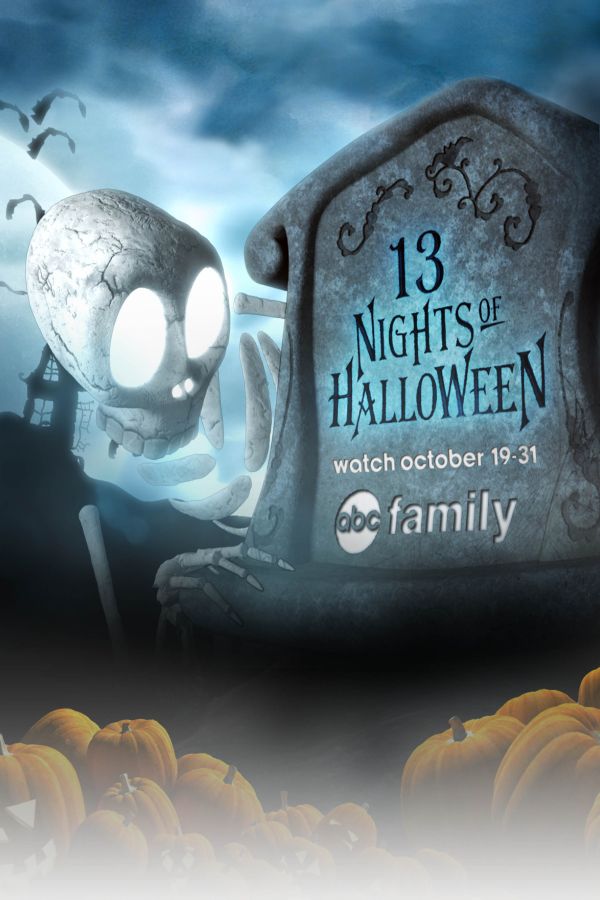
13 Nights of Halloween Font
Family13 Nights of Halloween, is a Halloween-themed programming block that airs on ABC Family, featuring a variety of spooky and Halloween-themed movies and TV shows.
The logo for the ''13 Nights of Halloween'' special program likely utilizes a modified version of the Algerian typeface. This decorative font comes in four different styles - basic, outline, initials, and small caps. You can learn more about the font here.